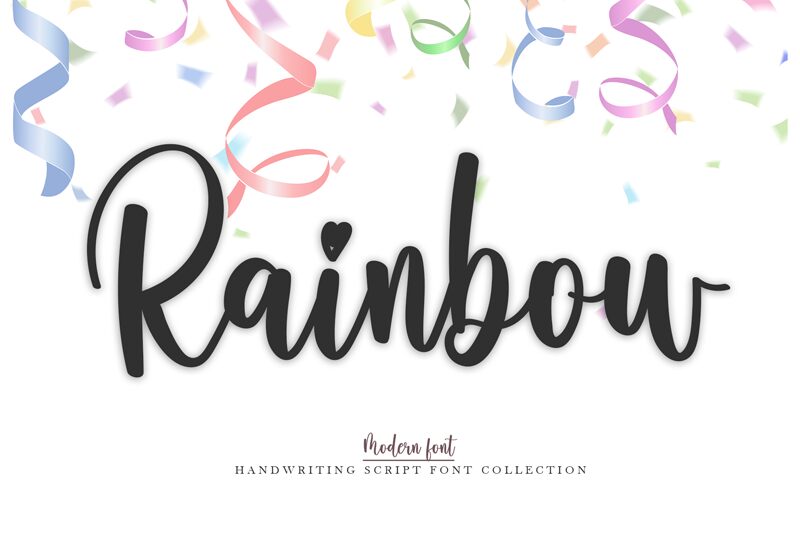
Rainbow
Rainbow, a stunning creation by font designer Kateeng Ciu, is an exquisite handwritten font that exudes elegance and charm. With its semi-condensed width, Rainbow strikes the perfect balance between sophistication and modernity. This versatile typeface is ideal for a myriad of projects, from sophisticated letterheads to eye-catching titles. Its calligraphic influence adds a touch of class to any design, while its contemporary feel keeps it fresh and relevant.
Whether you're working on stationery for a wedding invitation or creating captivating headlines for a magazine spread, Rainbow is the perfect choice to infuse your designs with style and creativity.